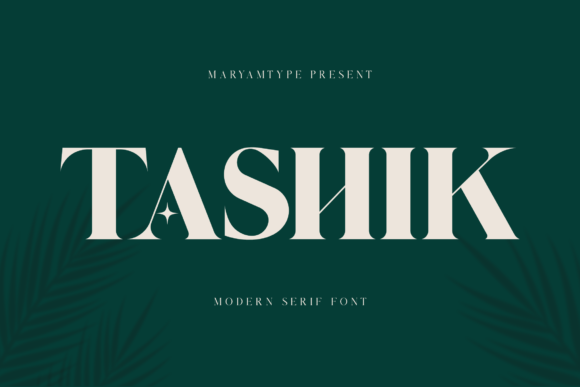
Introducing Tashik Font: The Epitome of Sophistication and Confidence
In the realm of typography, Tashik Font stands tall as a modern and stylish serif font that exudes confidence and class. Its meticulously crafted curves and elegant letterforms dance across the page, captivating readers with their undeniable charm.
With its commanding presence, Tashik Font effortlessly elevates any creation, transforming ordinary text into captivating headlines, eye-catching titles, and compelling paragraphs. This versatile font is the perfect choice for a wide range of projects, from sleek branding designs to formal invitations, from stunning posters to impactful presentations.
Tashik Font is the brainchild of Maryam Type, a renowned font foundry known for its exquisite attention to detail and unwavering commitment to quality. Each character in this font has been meticulously designed to ensure perfect harmony, creating a visually stunning typography that leaves a lasting impression.
Immerse yourself in the world of Tashik Font and discover a font that will ignite your creativity and elevate your designs to new heights. Allow its timeless beauty to grace your projects and witness how it transforms your words into captivating expressions of art.